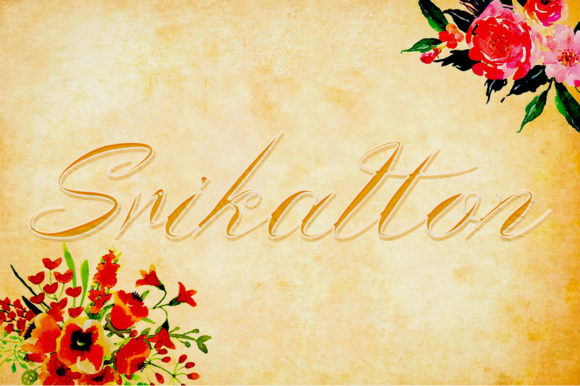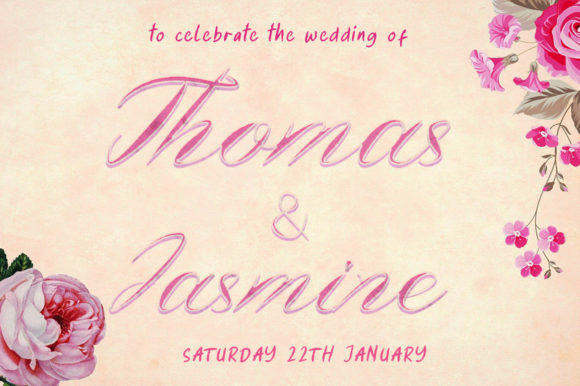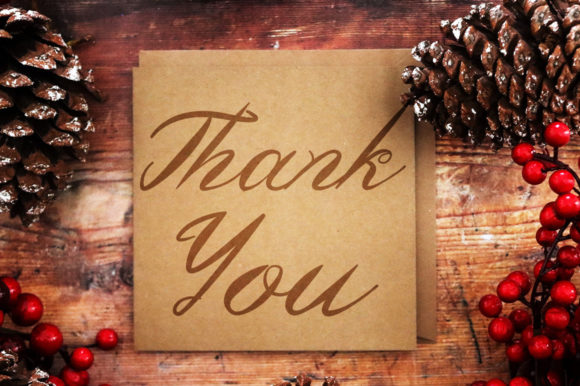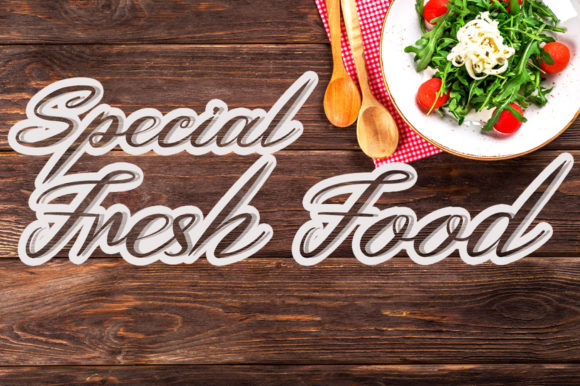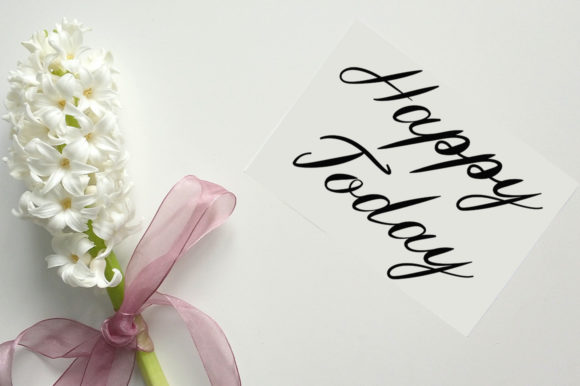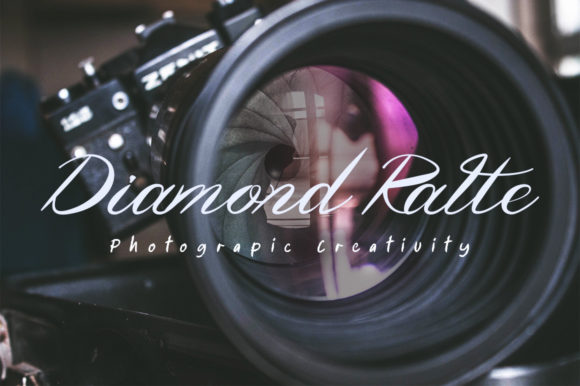
Srikatton Font
About Srikatton Font
Srikatton is a beautiful and refined script font. It has a classy, elegant and modern look that can be used for logos, branding, invitations, stationery, wedding designs, social media posts, and much more!